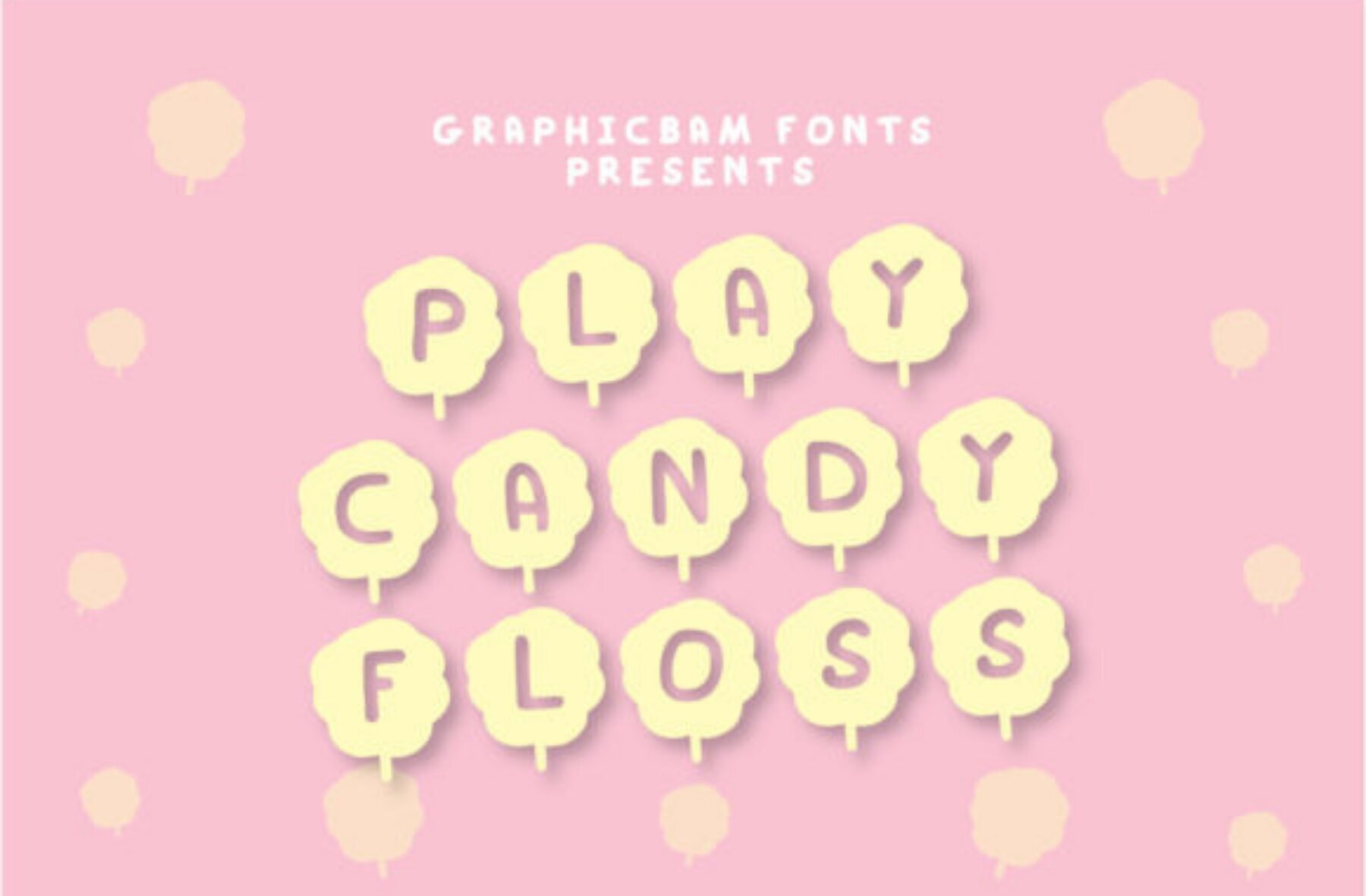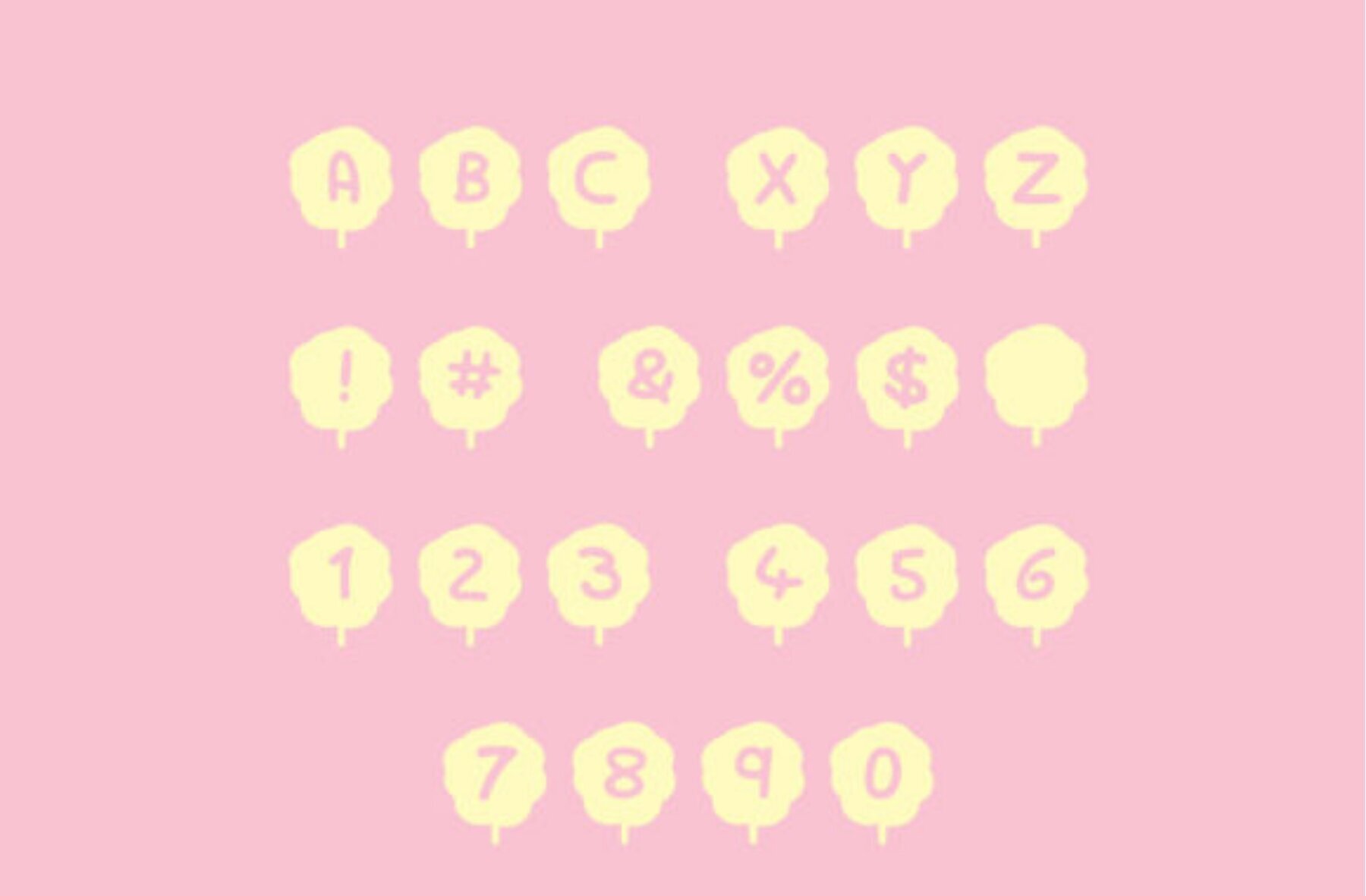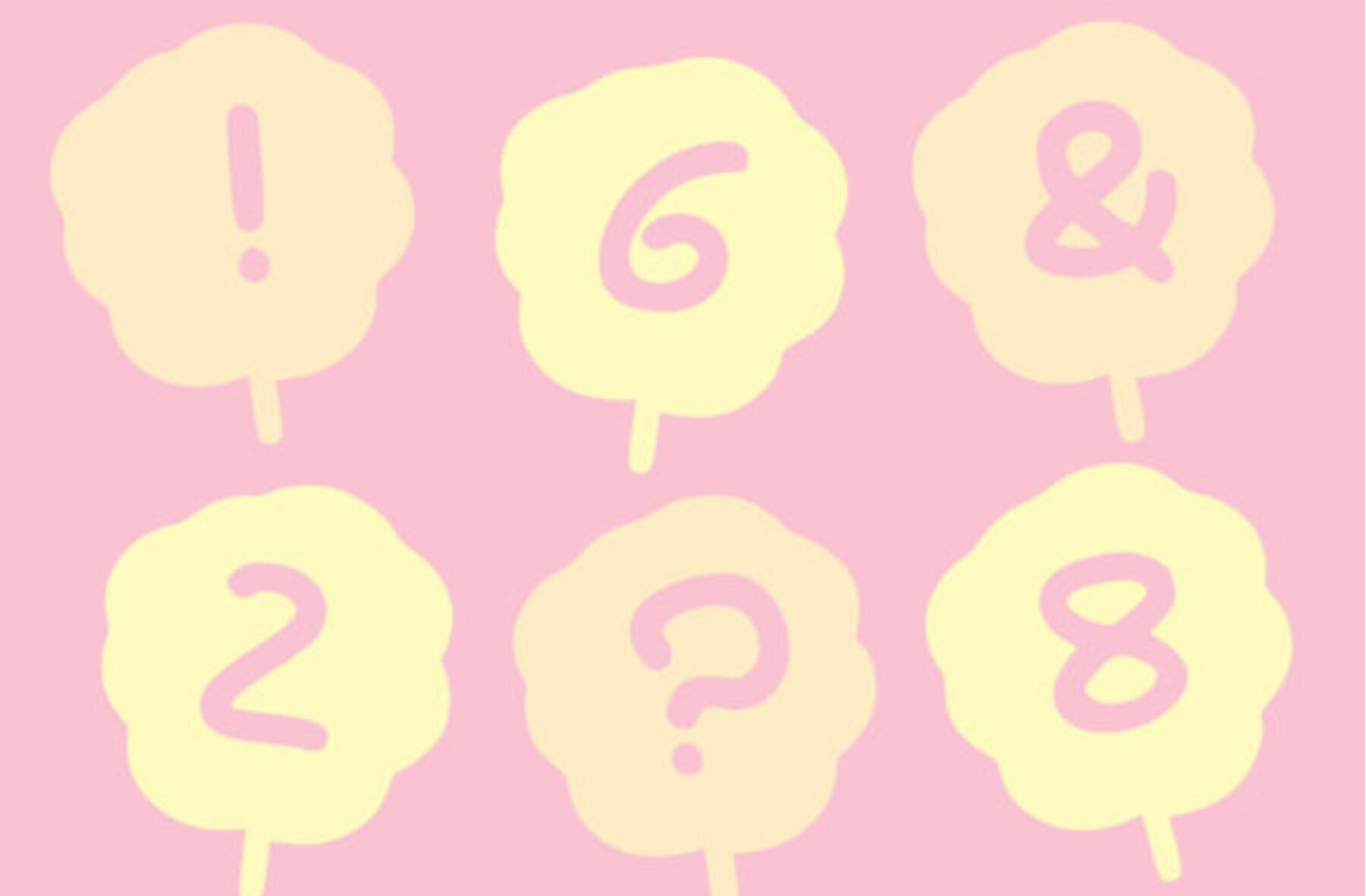
Play Candy Floss Font
Play Candy Floss Regular
Discover the whimsical charm of the Play Candy Floss font, where artistry meets fun. This decorative font, adorned with a candy piece on each character, adds a playful touch to your creative projects. Ideal for crafts, digital designs, presentations, or greeting cards, Play Candy Floss infuses uniqueness into every word.Play Candy Floss Font